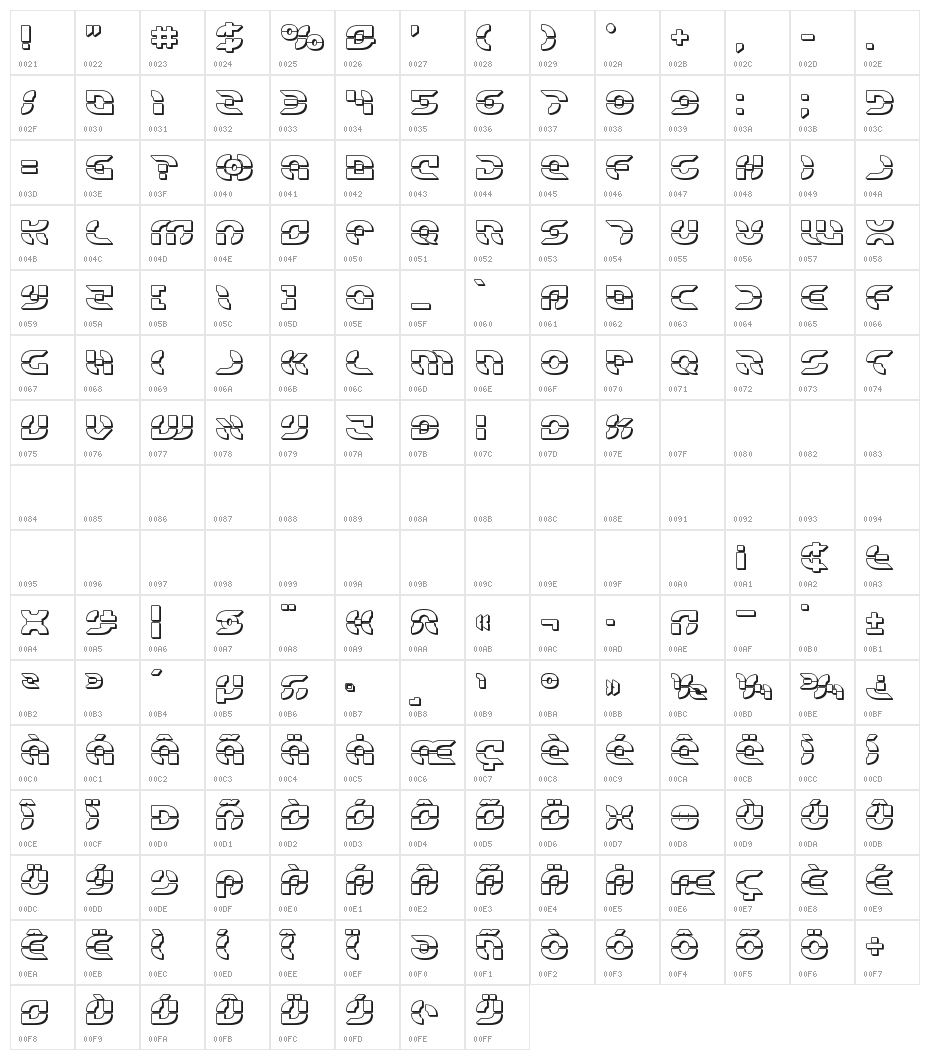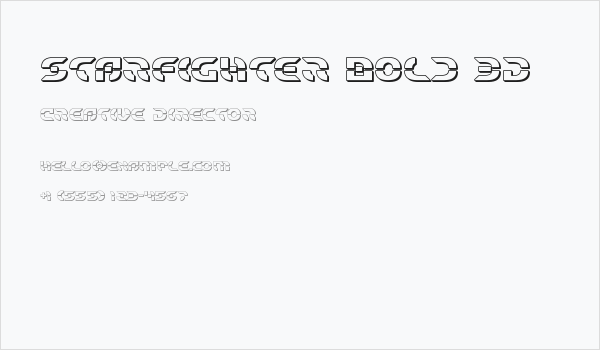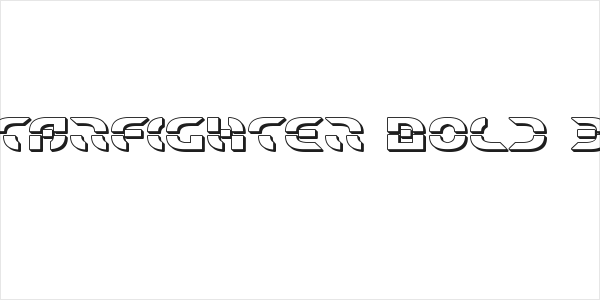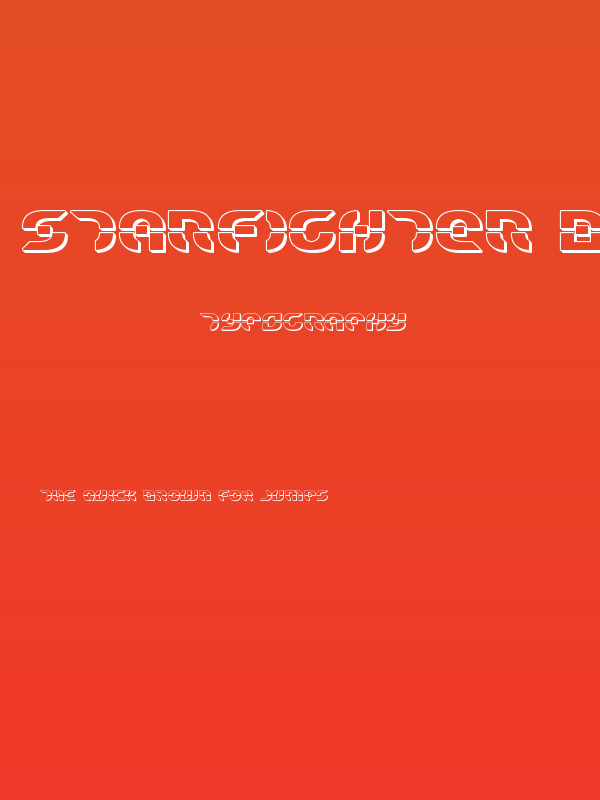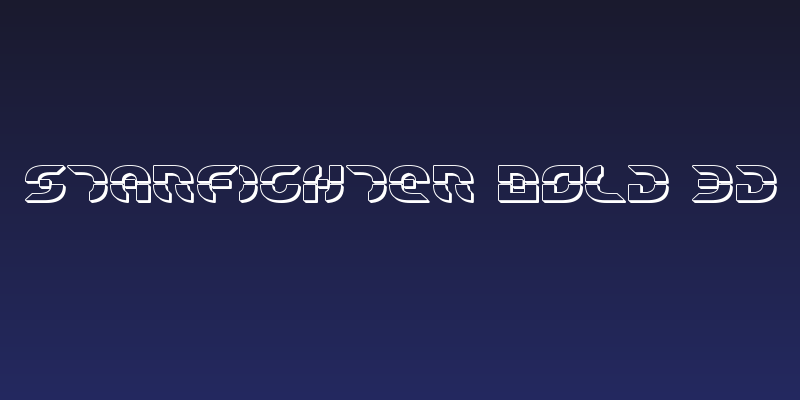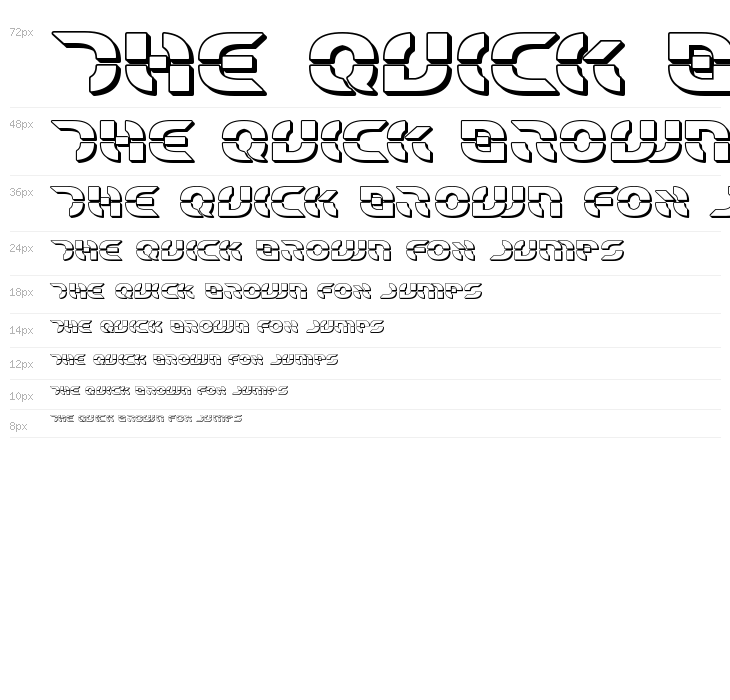
Starfighter Bold 3D Font
Starfighter Bold 3D Description
This font features a futuristic and bold design with a 3D effect, characterized by its geometric shapes and sharp angles. The letters are constructed with a combination of thick and thin lines, creating a sense of depth and dimension. The style is highly decorative, making it stand out with its unique and modern appearance. The characters are evenly spaced, ensuring readability while maintaining a distinct visual appeal. This font is ideal for projects that require a strong and eye-catching typeface, such as posters, logos, and sci-fi themed designs.
| Proposed Projects | Ideal for sci-fi themed designs, posters, logos, and any project needing a bold, modern typeface. |